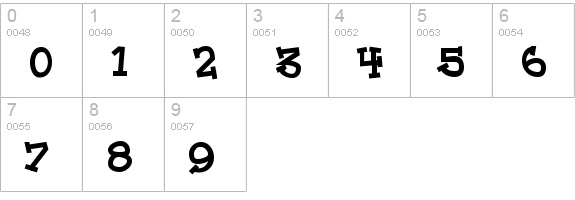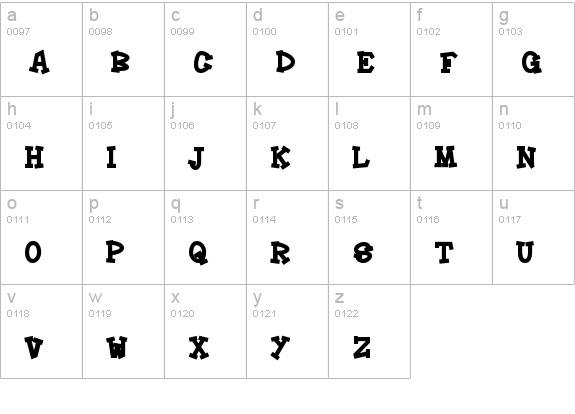
Hoedown Font Details
Hoedown font is a whimsical and charming typeface that exudes a playful and festive vibe. With its unique and lively design, Hoedown is perfect for adding a touch of fun to your projects, whether it's invitations, posters, or social media graphics. The font features quirky letterforms with a handcrafted feel, making it stand out and capture attention. What's even better is that Hoedown font is completely free to download at FontsMarket.com. This means you can easily access this delightful font and use it in your designs without any cost. So go ahead and bring a cheerful and carefree spirit to your creations with Hoedown font – your go-to choice for adding a touch of whimsy to any project.